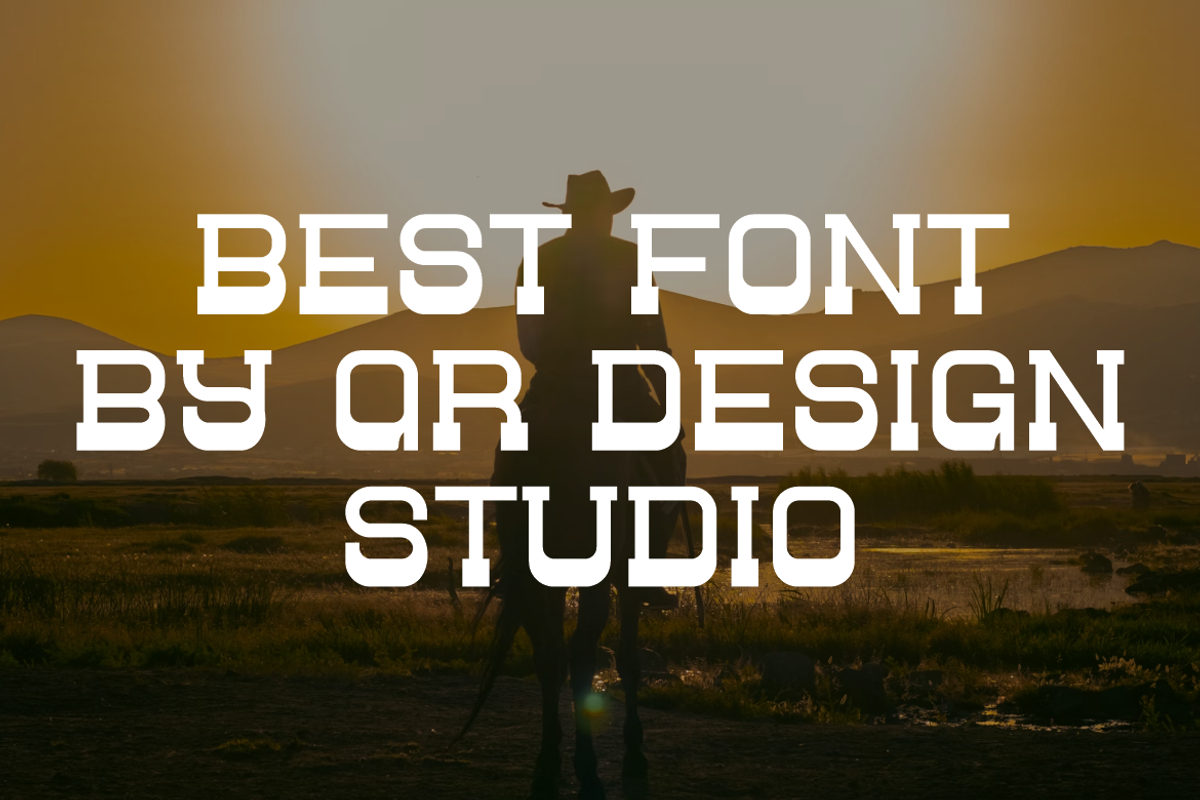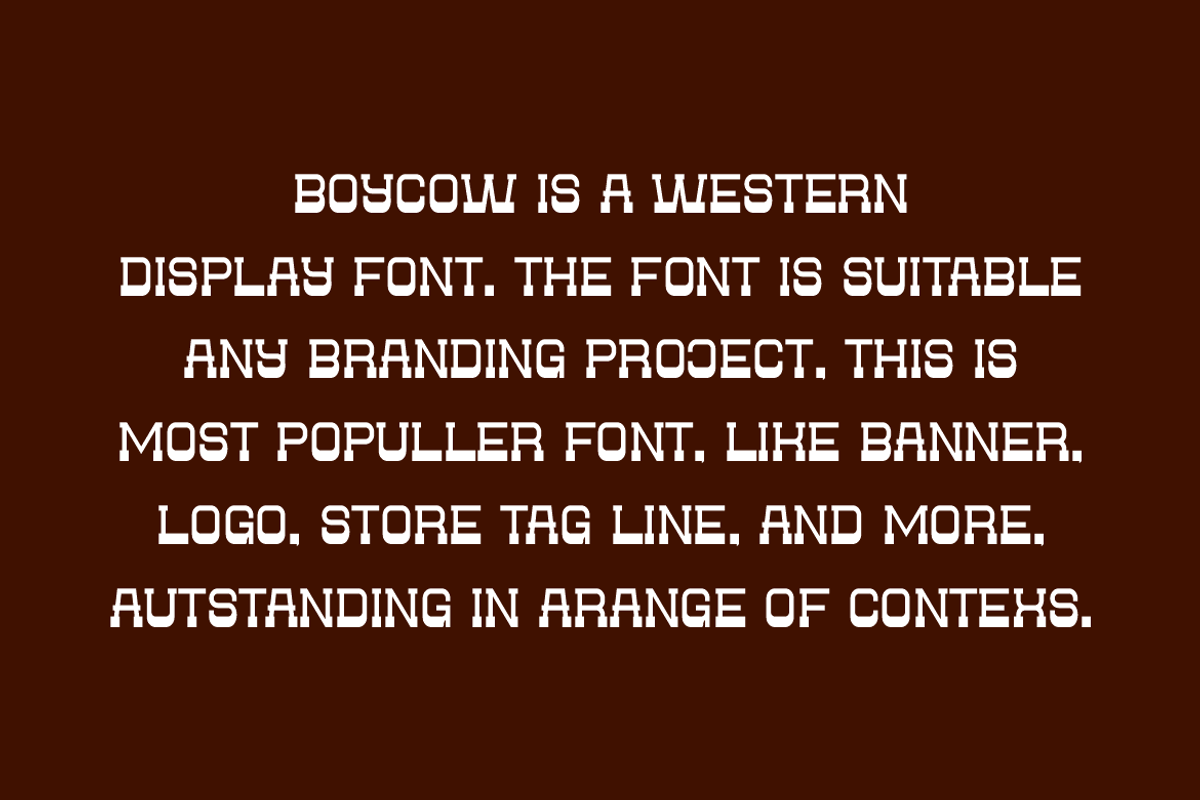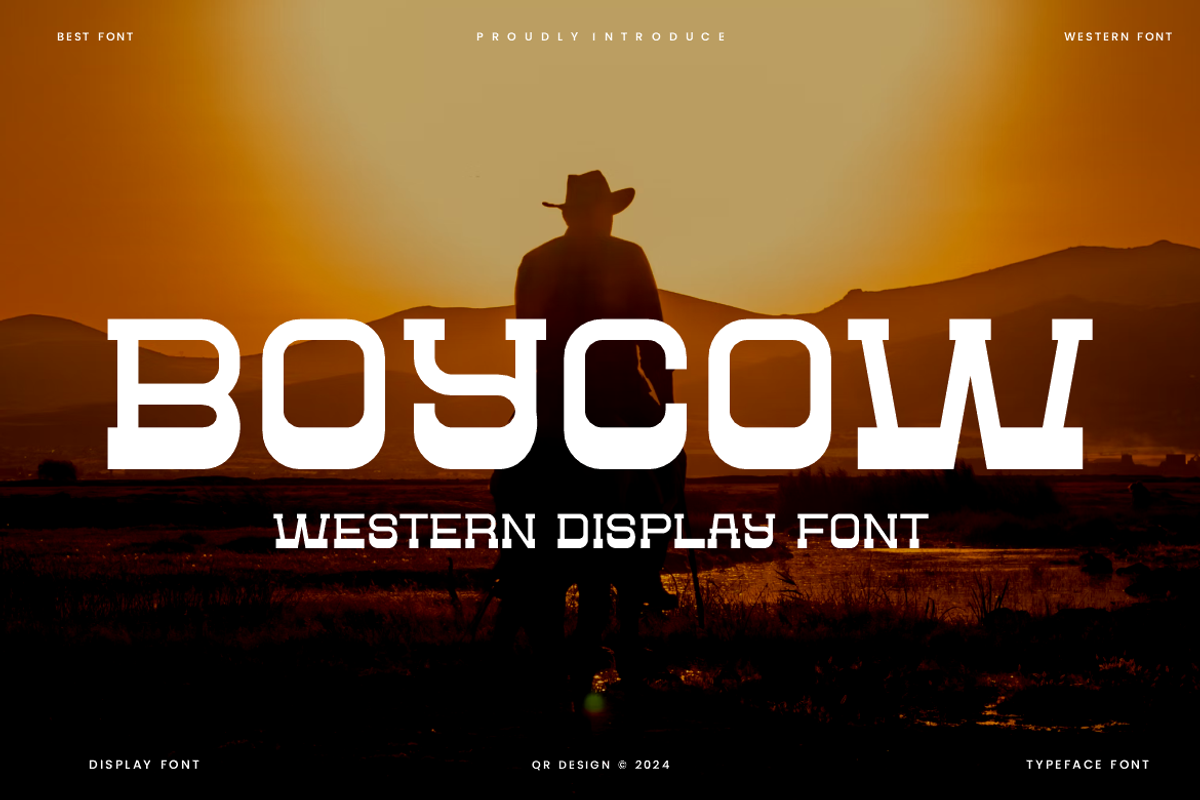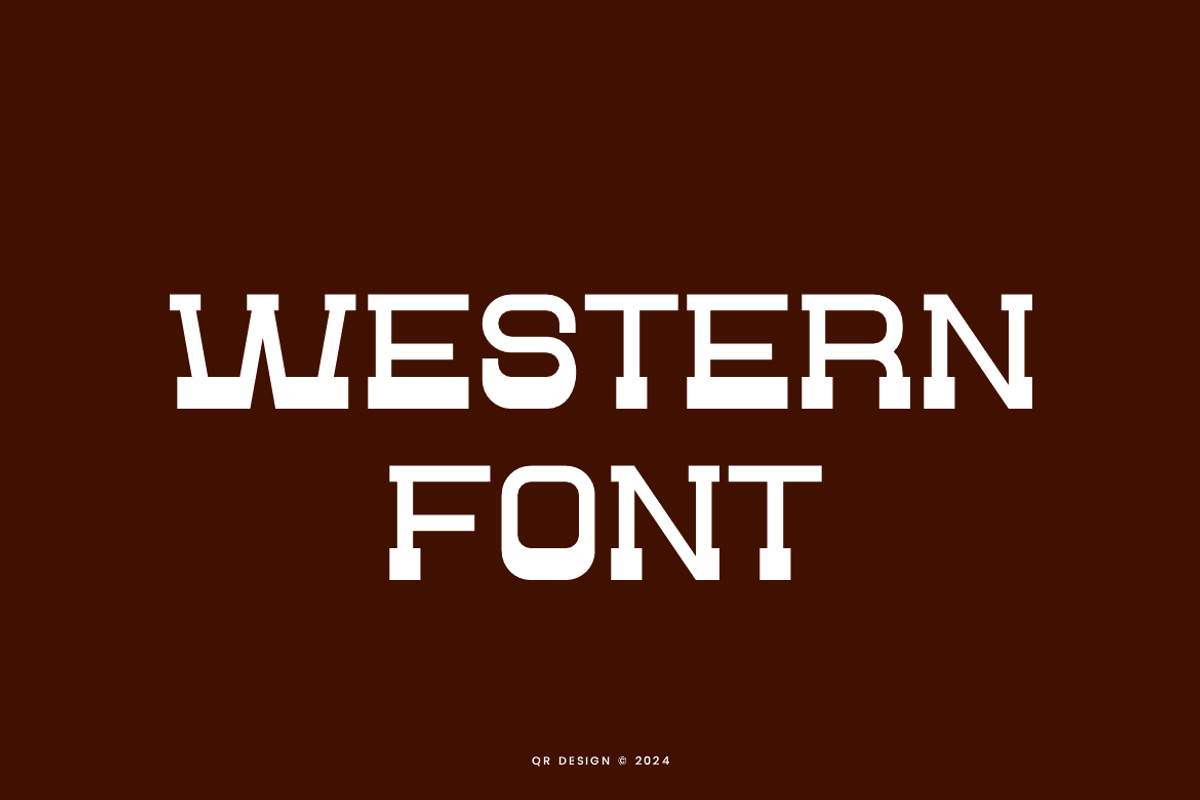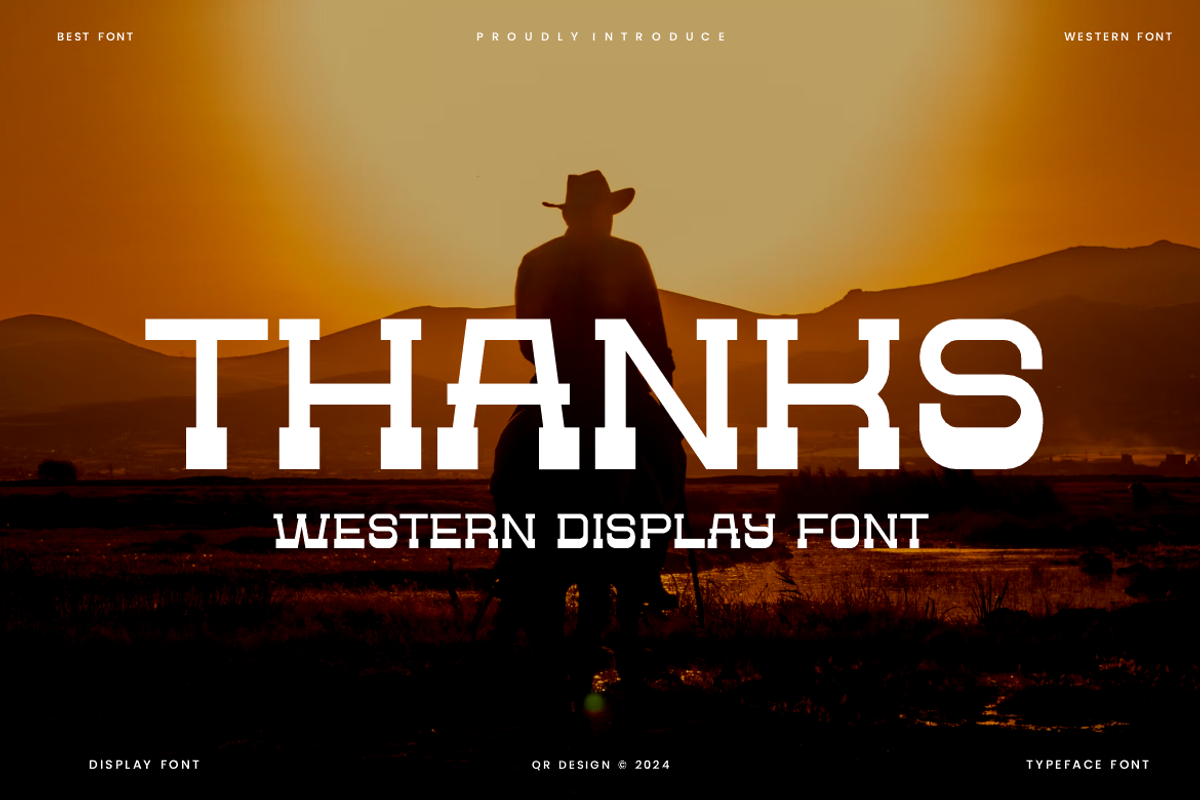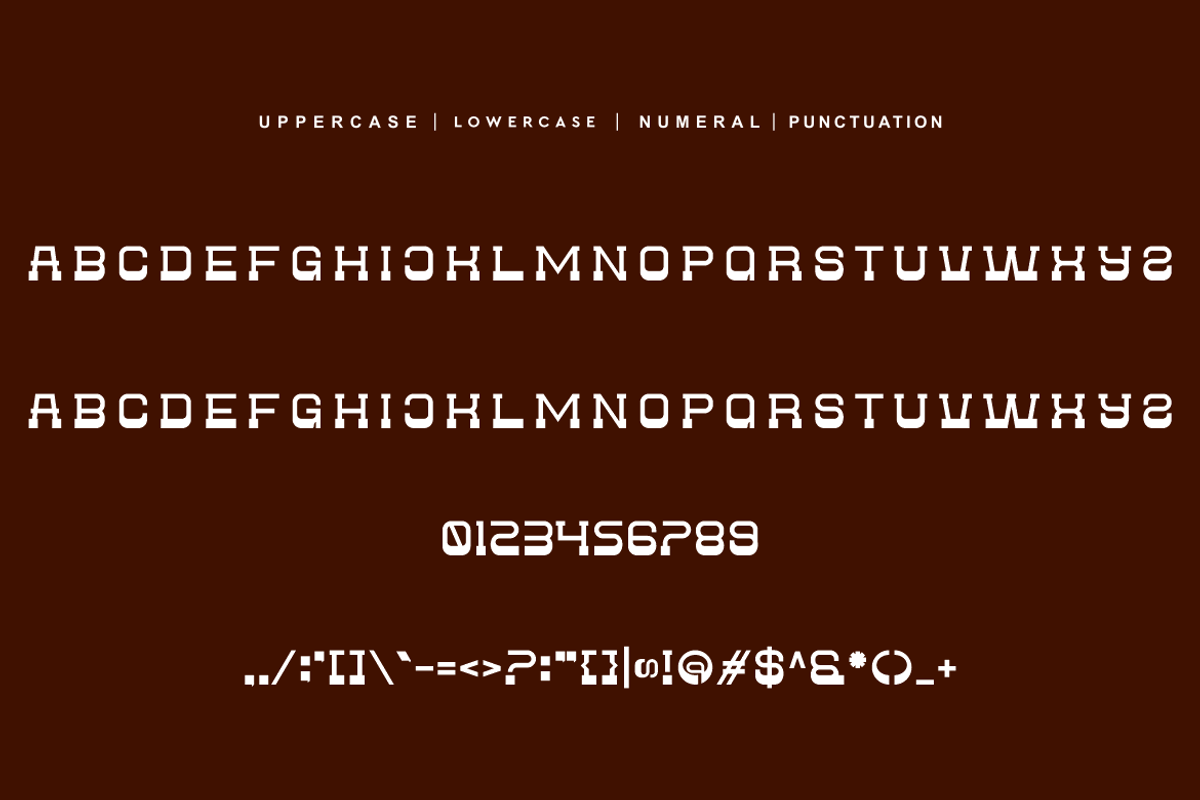
Boycow - Western Font
Boycow Font is a serif and authentic display font. The font is suitable for any branding project like poster, logo, western, and many more. Outstanding in a wide range of contexts.